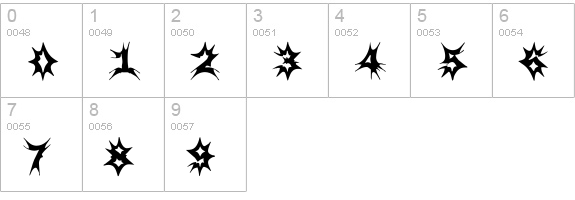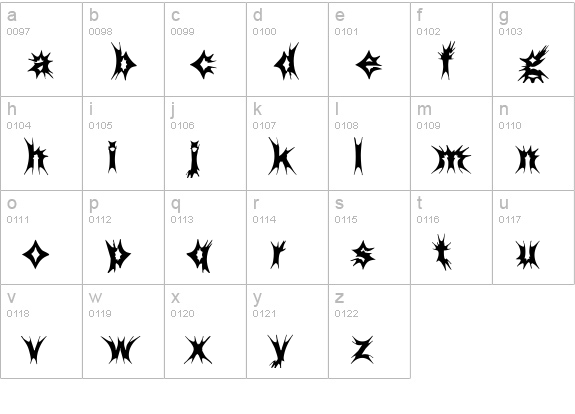
DTCFunkyM34 Font Details
DTCFunkyM34 is a lively and playful font that exudes youthful energy and creativity. This unique typeface features whimsical curves and bold lines that give it a funky and modern look. Perfect for adding a touch of fun and personality to any design project, DTCFunkyM34 is sure to make a statement. Best of all, this font is completely free to download at FontsMarket.com! So grab your copy today and let your creativity flow with DTCFunkyM34.